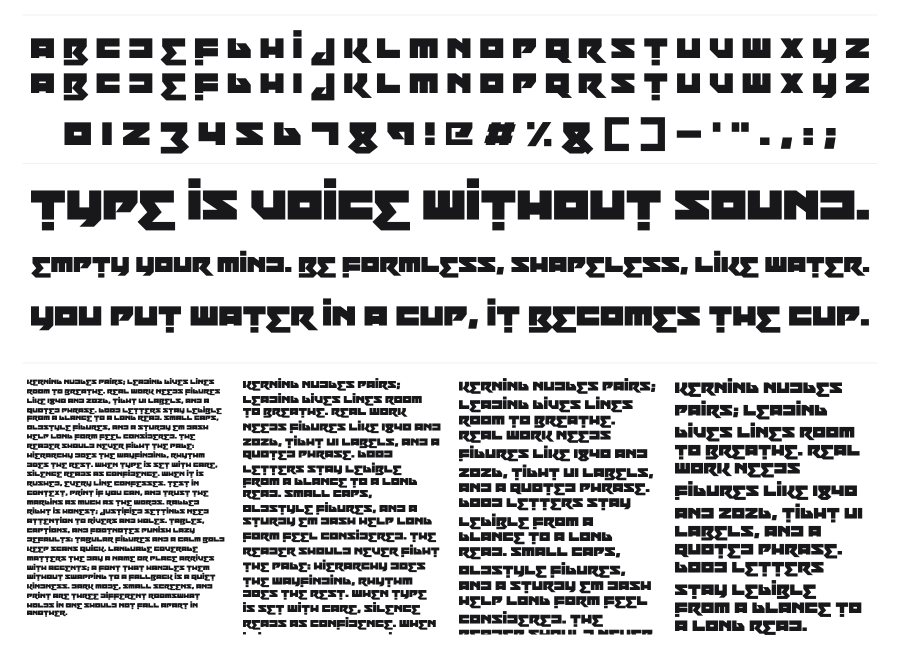
Robot Roar
Robot Roar is a heavy geometric display face built from squared, modular forms with sharp chamfered angles in place of any curves. Every character reads as machine-assembled, constructed from interlocking rectangular parts with no stroke variation whatsoever. It belongs on game titles, action posters, and anything that needs to feel like it was designed by a robot.